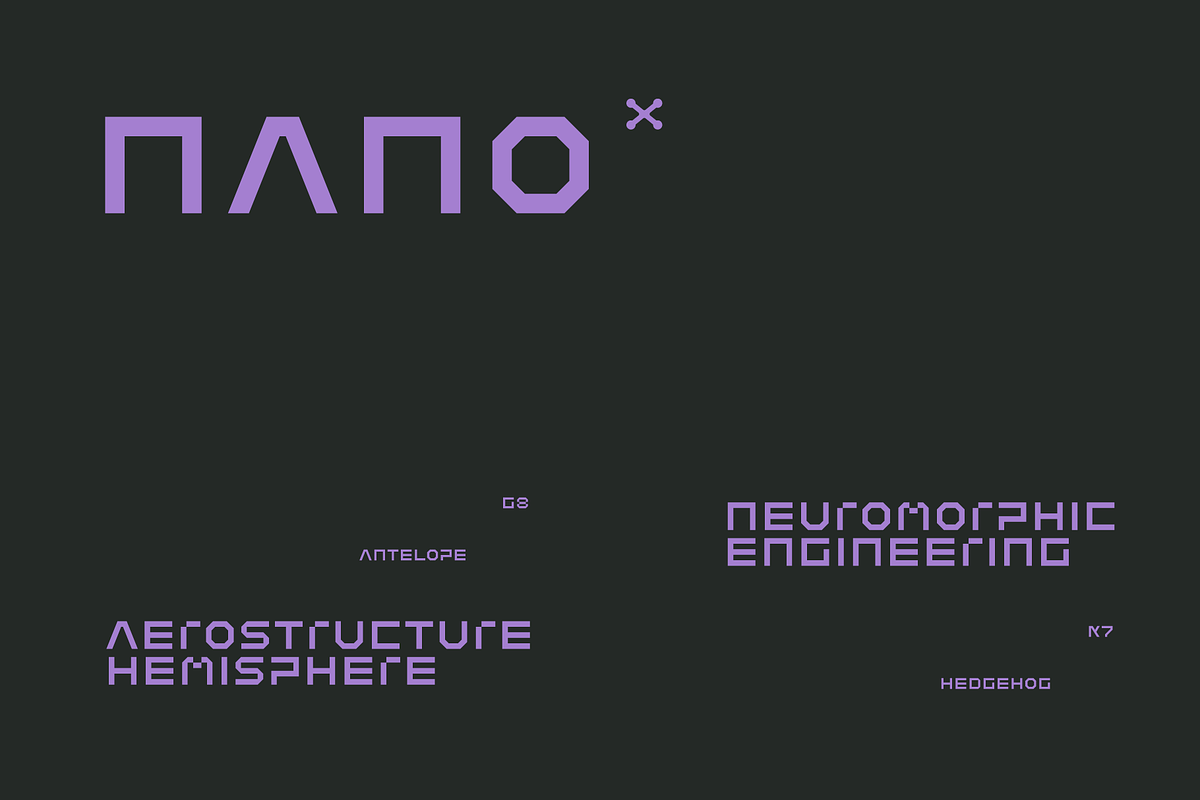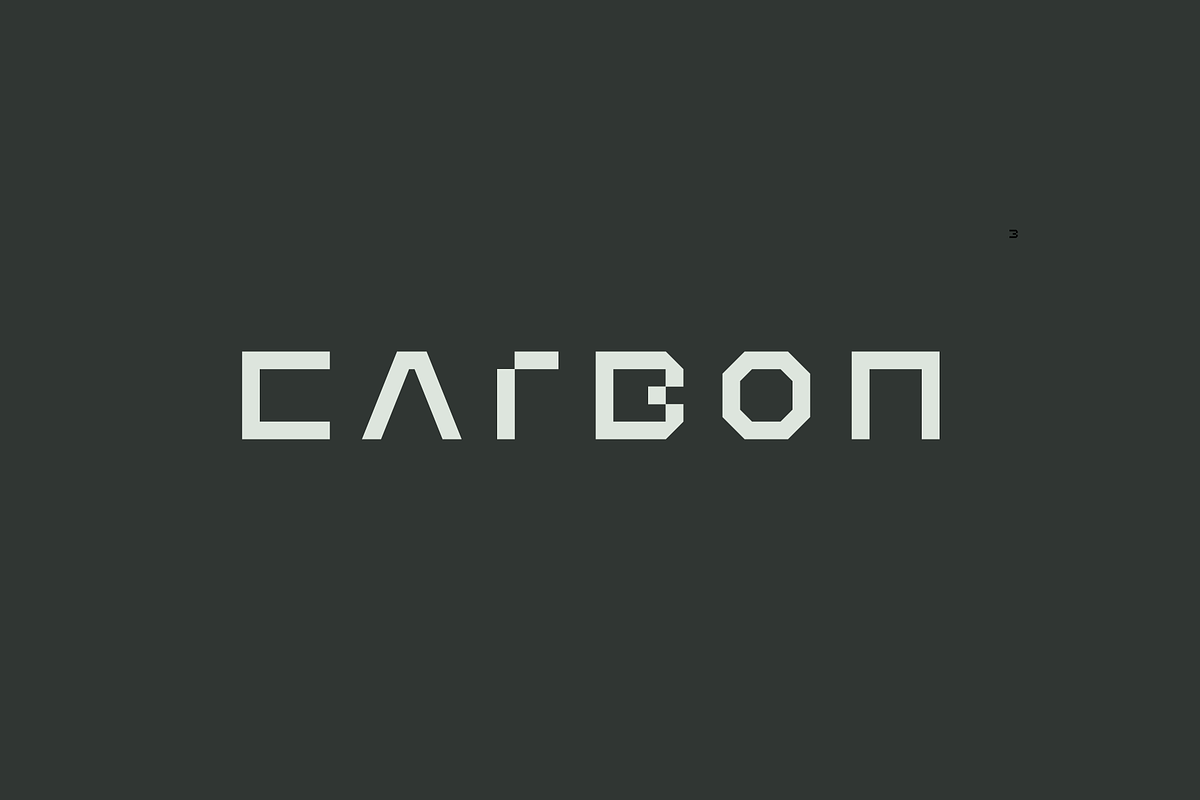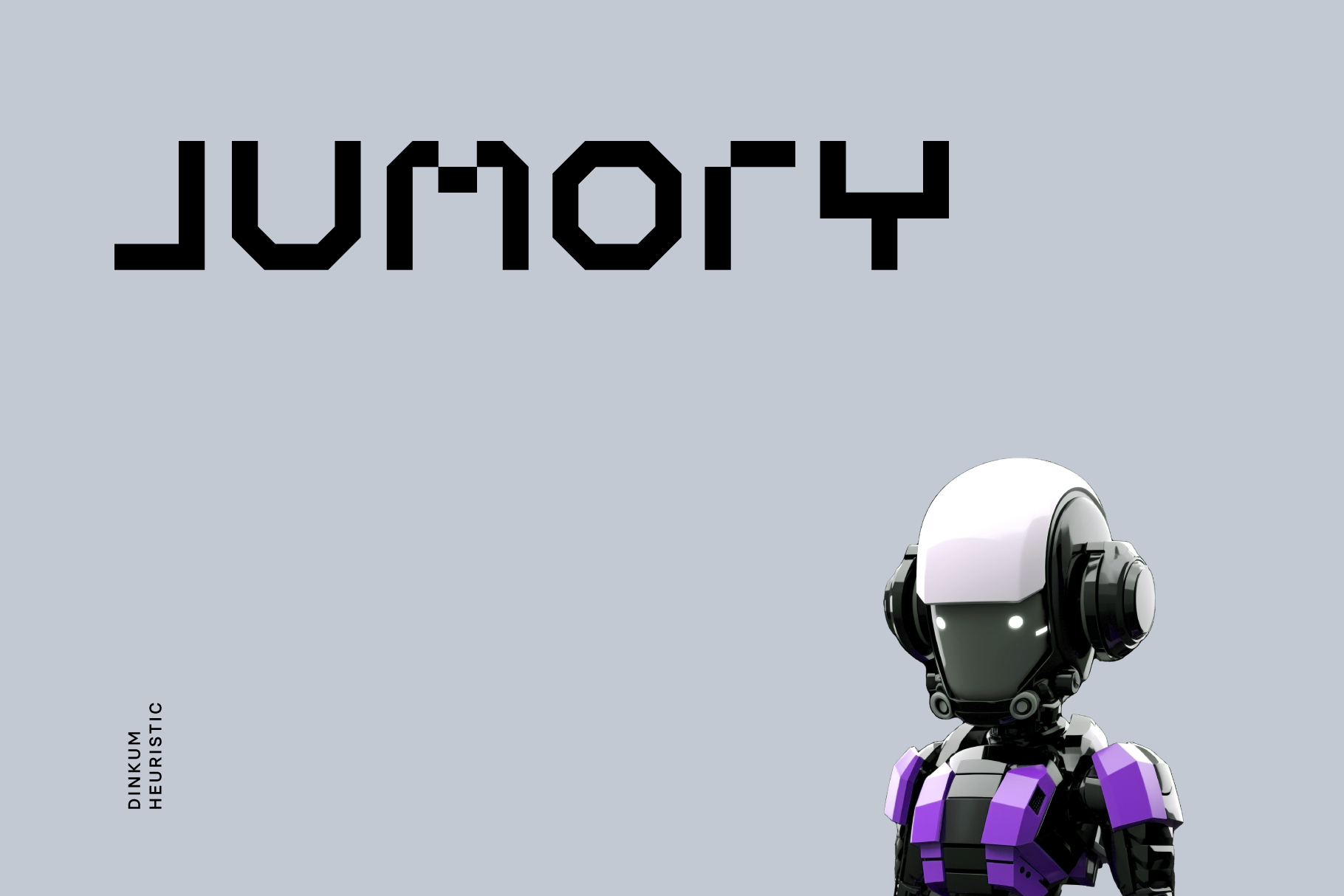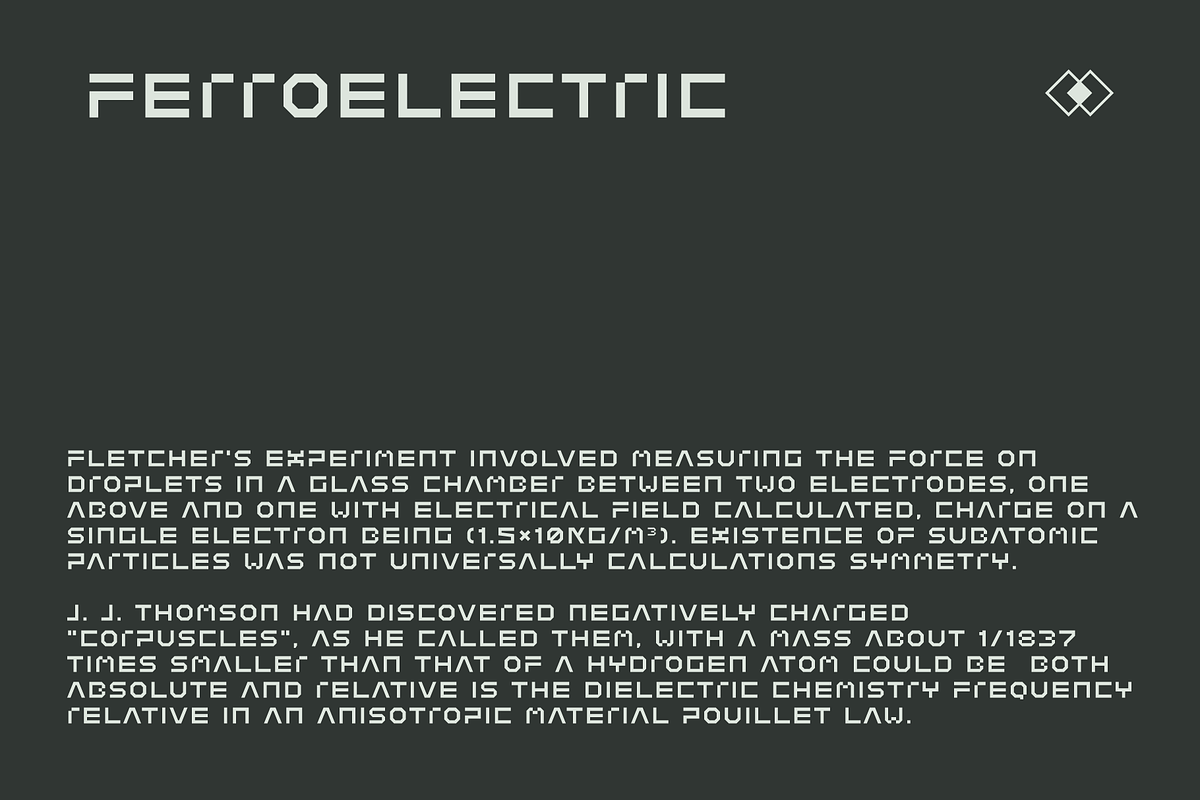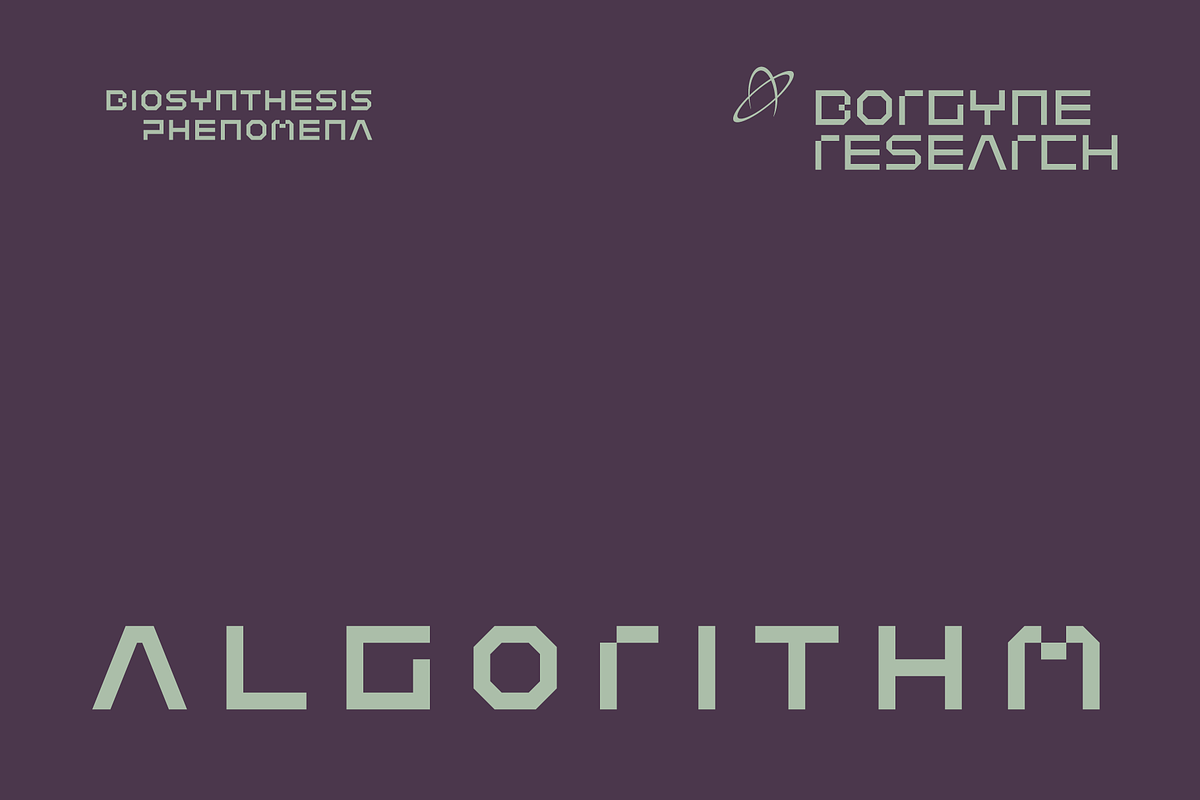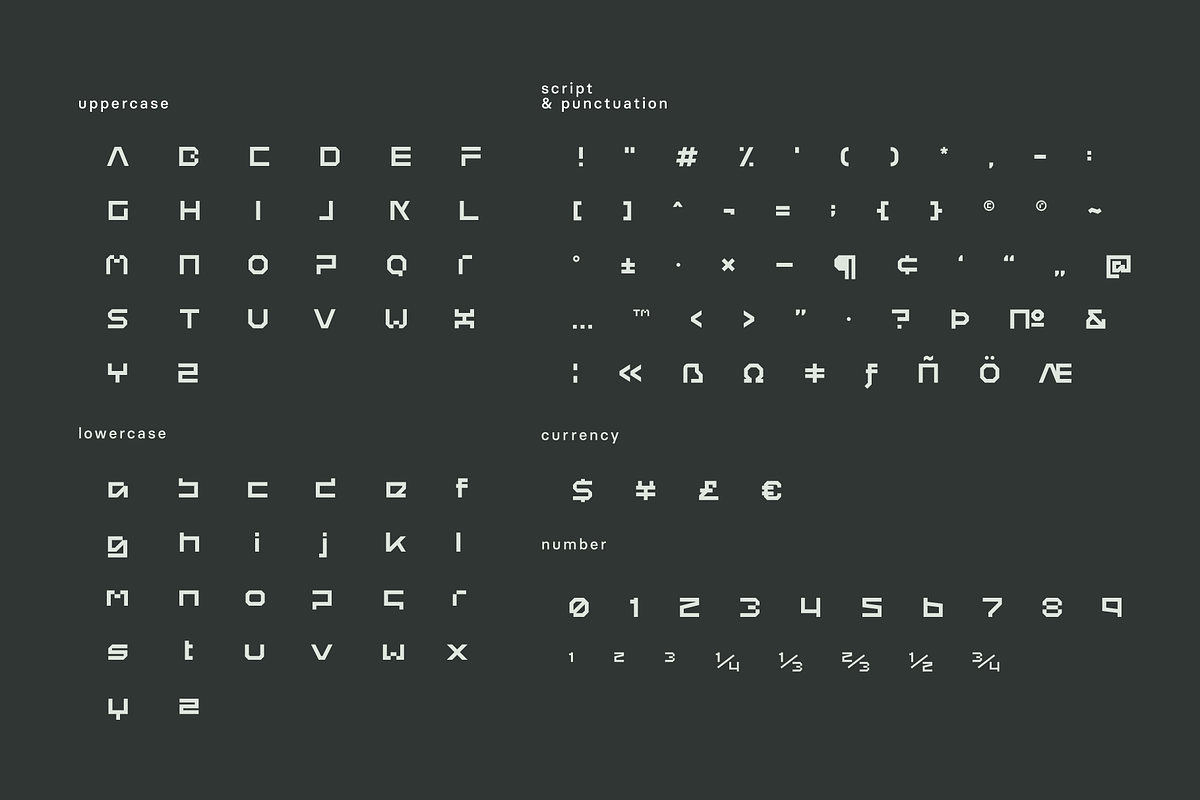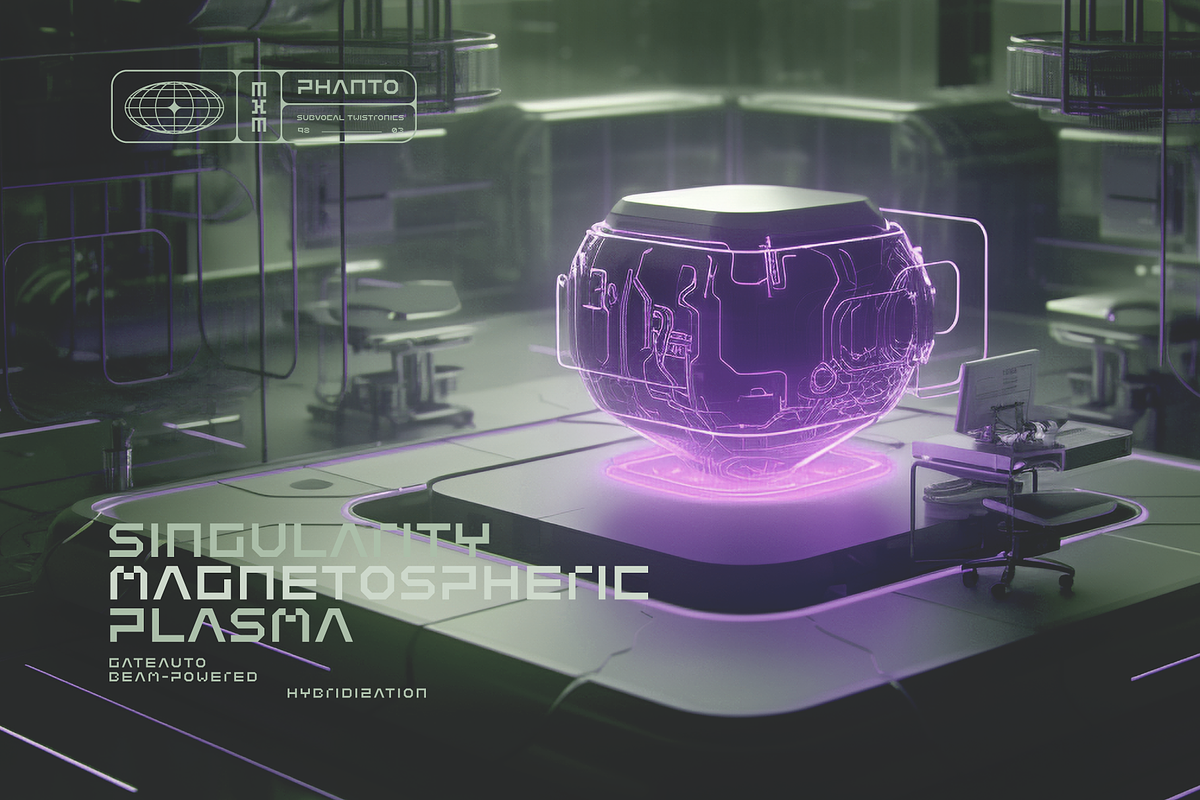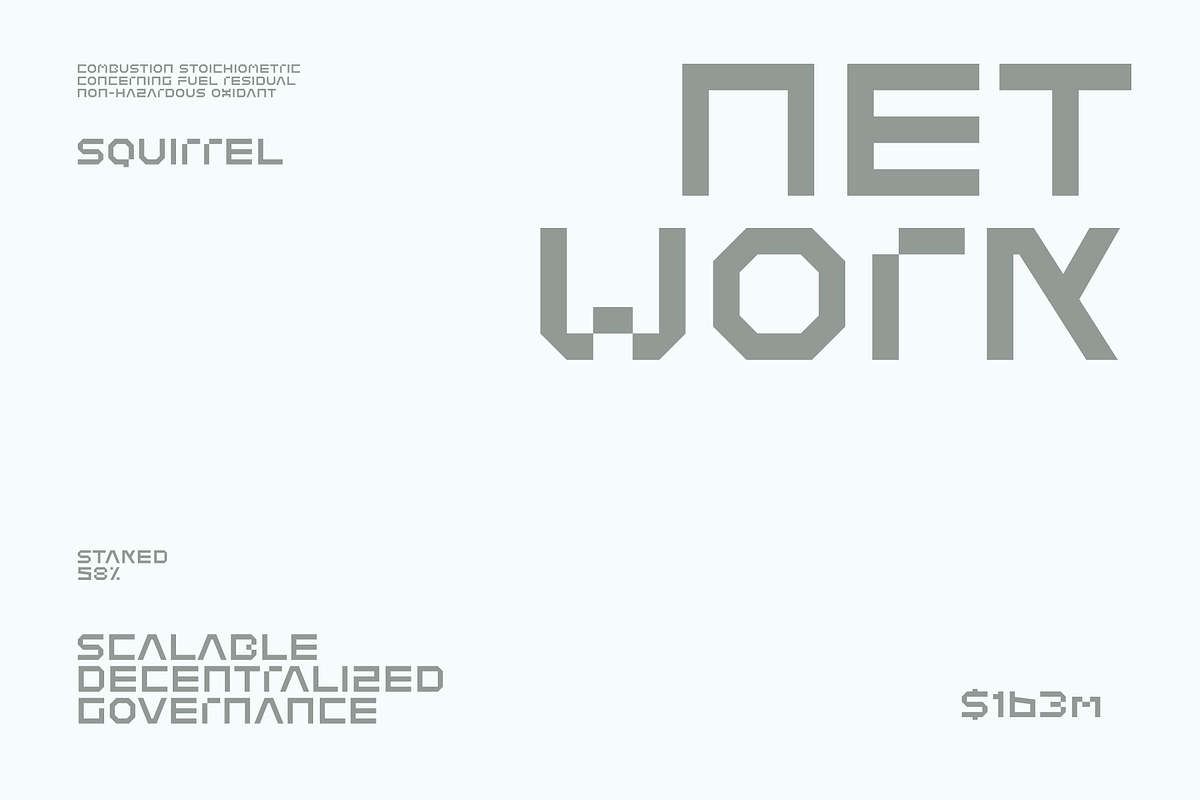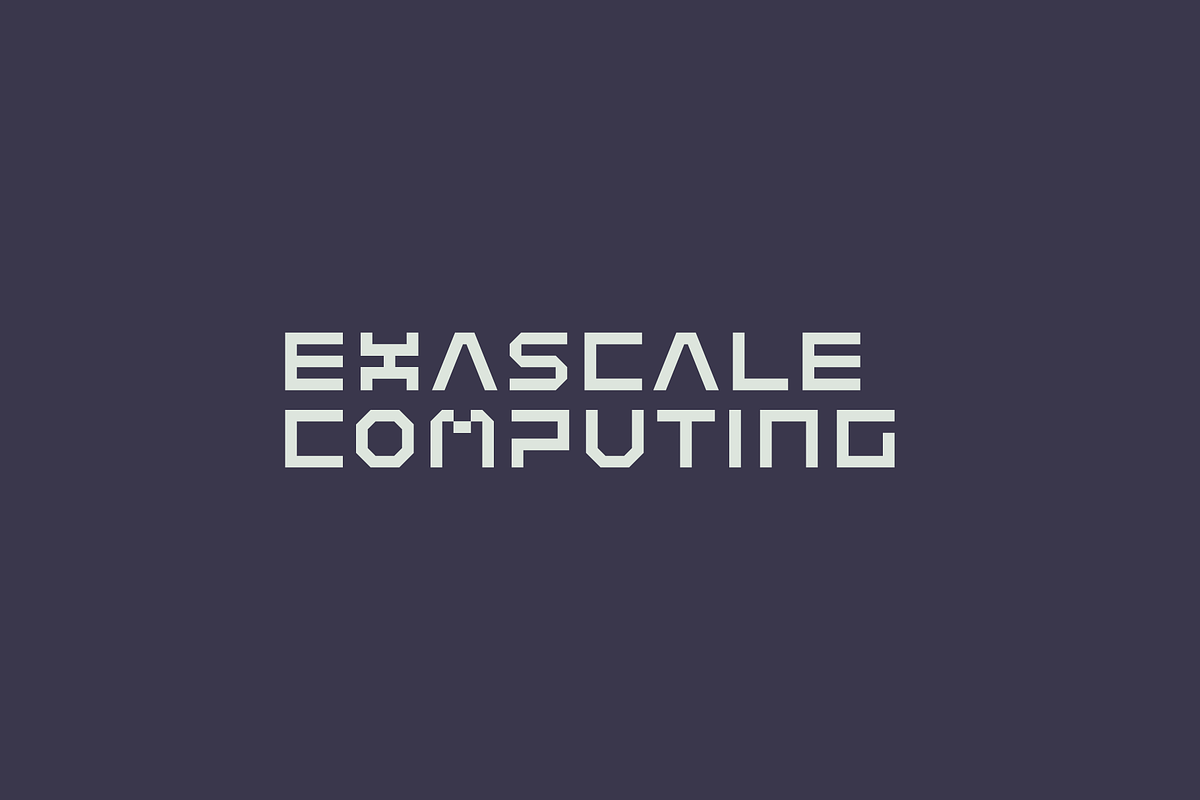
Jumory Font
Jumory is dinkum heuristic mono lineal typeface apt for headline, editorial, branding, packaging, printed materials and typographic applications. 220+ glyphs including punctuation and numerical.